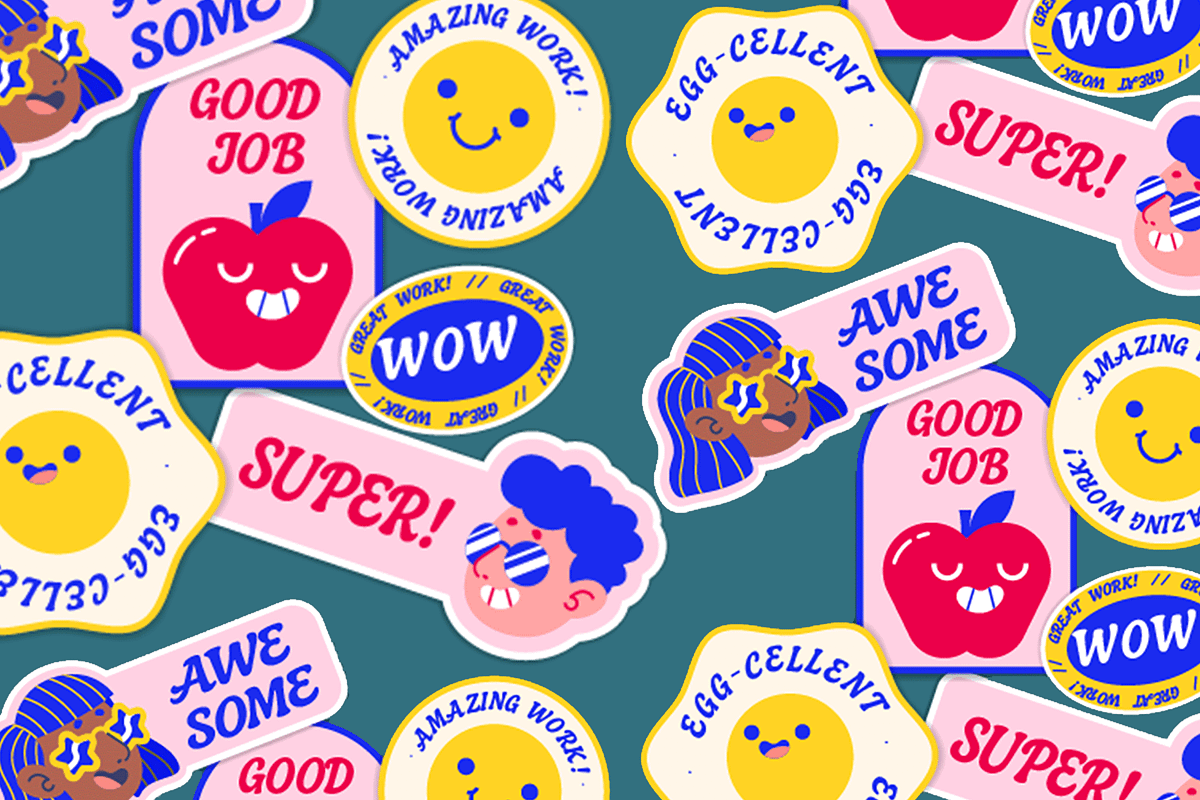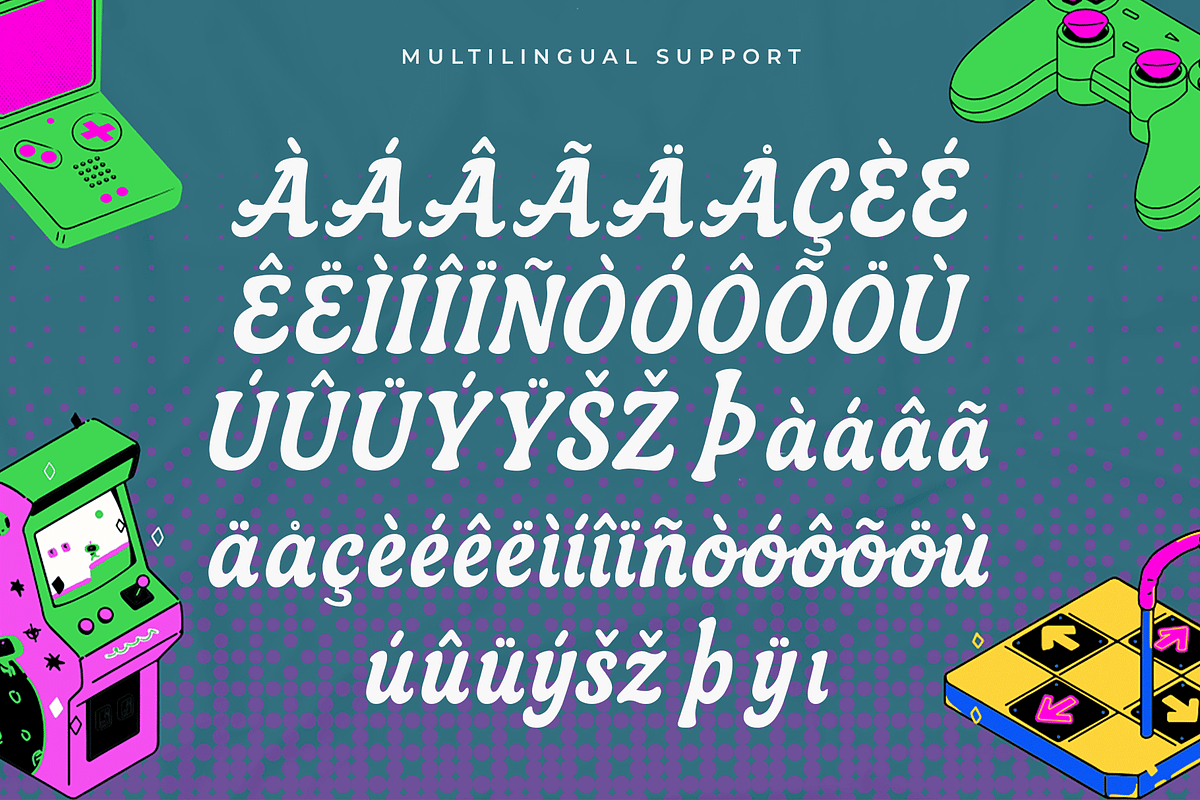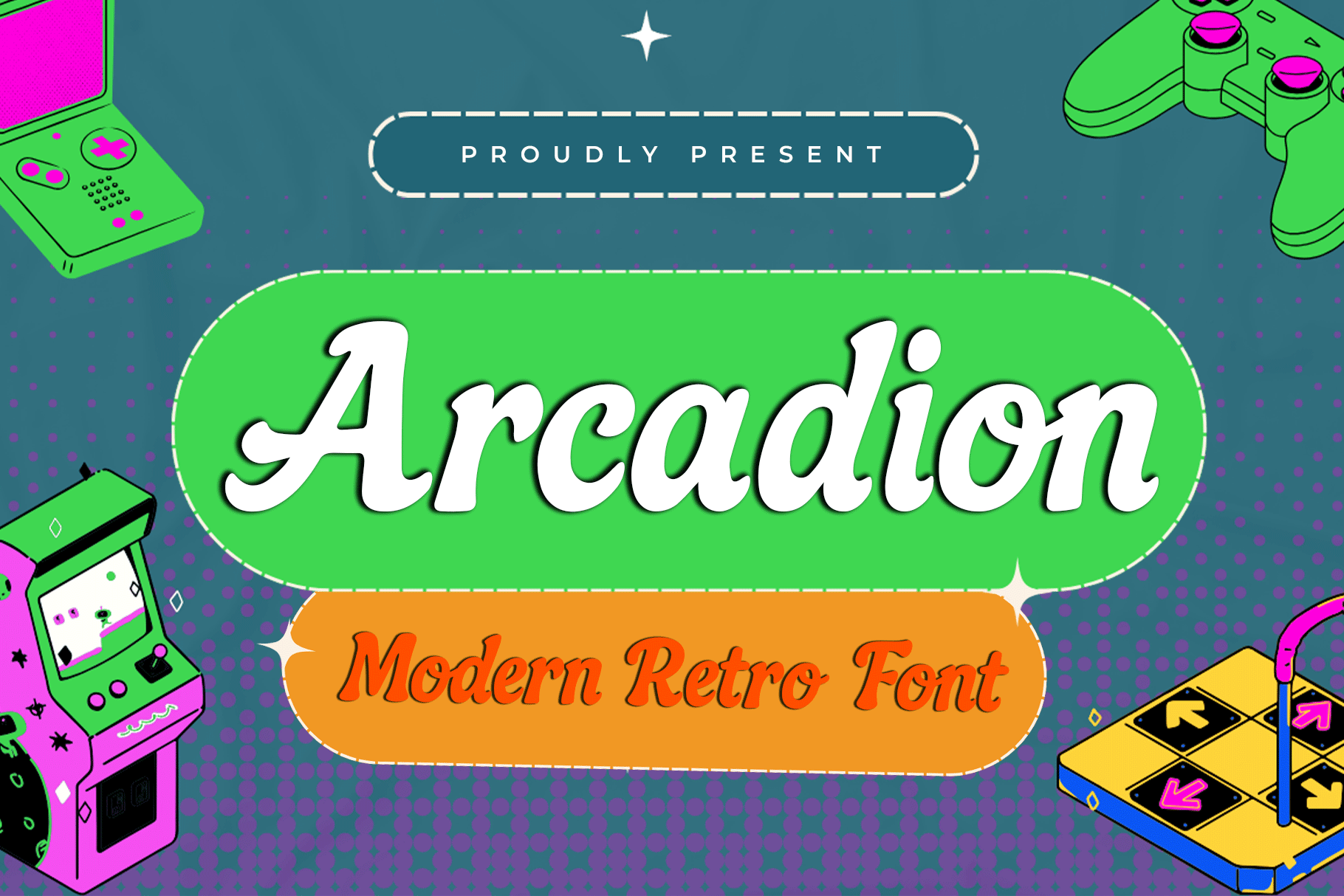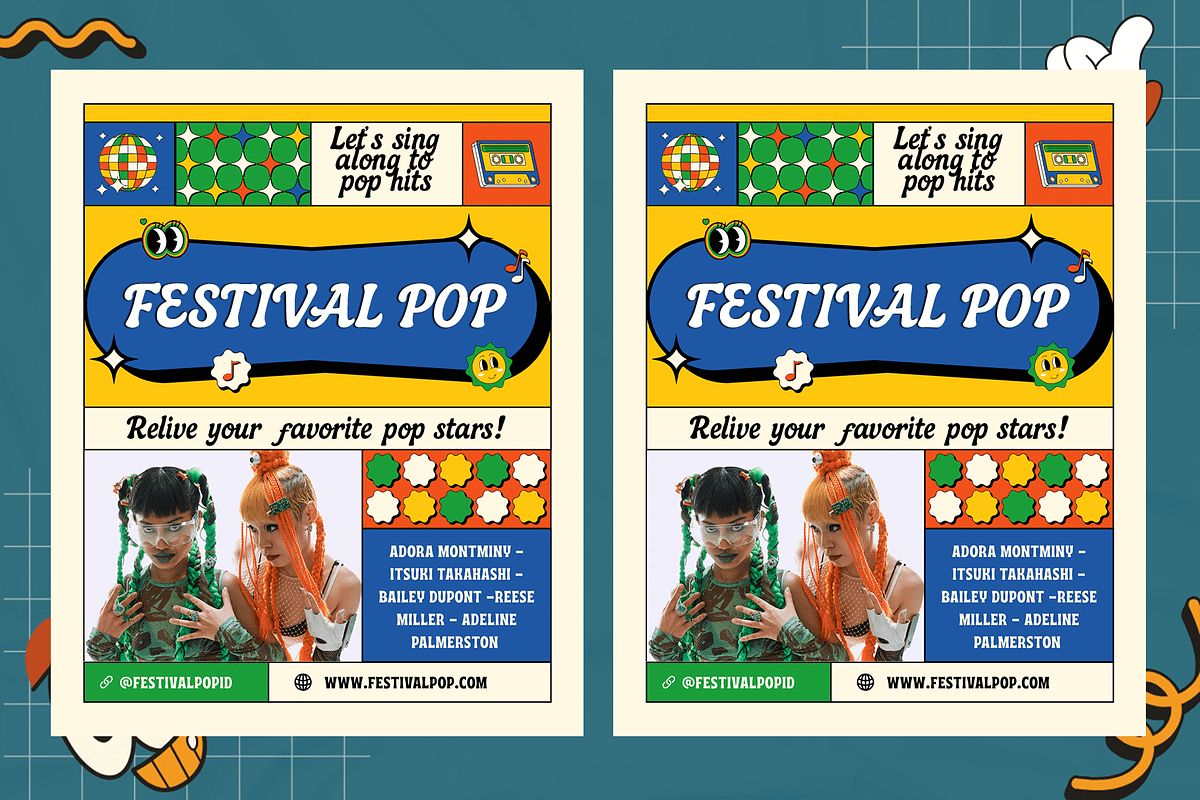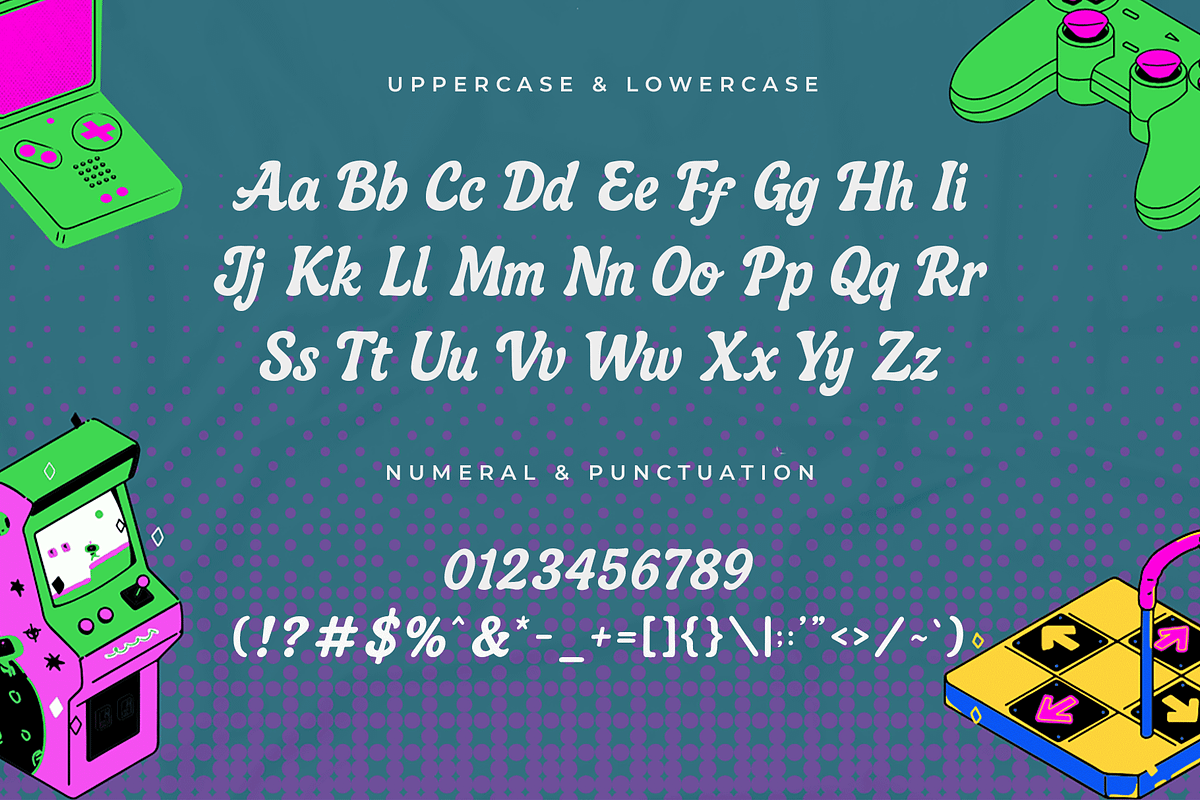
Arcadion – Modern Retro Font
Bring nostalgic flair into your designs with Arcadion, a modern retro font that blends vintage aesthetics with clean, contemporary style. Its bold curves and geometric letterforms are inspired by classic arcade and retro design, making it the perfect choice for projects that need a fun, eye-catching, and stylish look.
Ideal for logos, posters, headlines, packaging, branding, and social media graphics, Arcadion delivers a timeless retro energy while remaining versatile for modern use. Whether you’re designing for fashion, music, gaming, or lifestyle brands, this font adds a unique character that grabs attention.
The font includes uppercase, lowercase, numbers, punctuation, and multilingual support, ensuring flexibility for a wide range of creative projects.